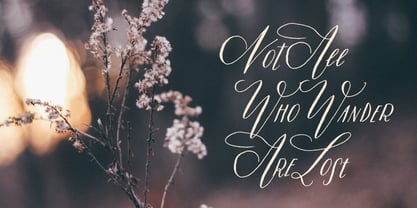
Prosciutto
Prosciutto™
by tuccicursive
Prosciutto is a completely handlettered typeface that just like the Italian cured ham itself, is a buttery mix of salty and sweet forms. Prosciutto combines modern script and primitive printing that makes its own kind of modern day folk movement. This typeface has so many combinations available almost making a completely new style every time you combine the three different fonts. There is also a set of over 50 extras that add a touch of organic spontaneous hand drawn flourish to your designs. Prosciutto includes a full international and multilingual support and a very large set of alternate contextual characters and built-in ligatures to allow flawless typesetting in dynamic OpenType format. I have always used art and letters to describe my world, and am so happy to bring that work into the digital realm. For me, there is a definitive spiritual connection between a person and their handwriting. It’s almost as moving as a photo of them, possibly, even more so.
Created by lettering artist, writer and illustrator, Liz Bartucci, Prosciutto is Liz’s first offering from her Tuccicursive Foundry. Her work is 'inspired from her expressive Italian-American Family.‘ Liz has always used art, words, and letters to describe her world, and now is happy to bring her work into the digital realm. “Everyone in my family has beautiful, characteristic handwriting, you could always tell who was sending you a letter before opening the envelope.” My prized possessions have always been my families’ notes and letters. For me, there is a definitive spiritual connection between a person and their handwriting. It feels so natural to design hand drawn typefaces because I've honored it for so long."